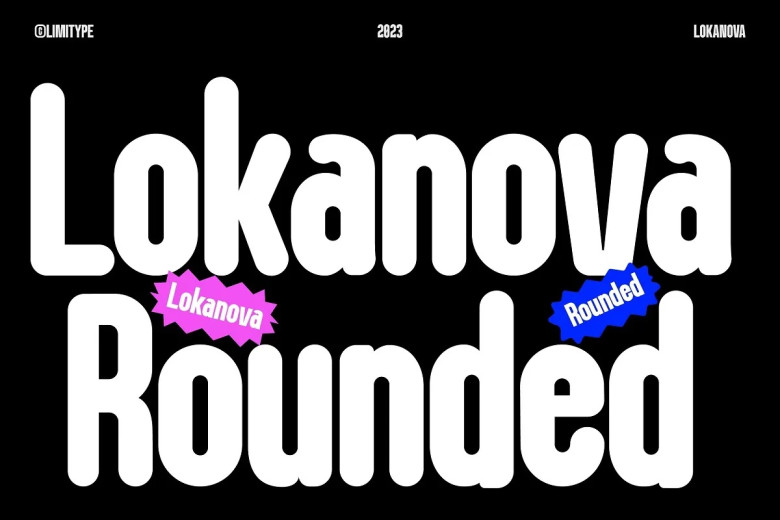
Lokanova Rounded Font
Lokanova features an eye-catching sans-serif font designed with an innovative and bold style, creating the illusion of playful yet firm design. Lokanova comes in uppercase, lowercase and number styles; additionally multilingual versions can also be purchased.
Lokanova Rounded Sans Serif Font